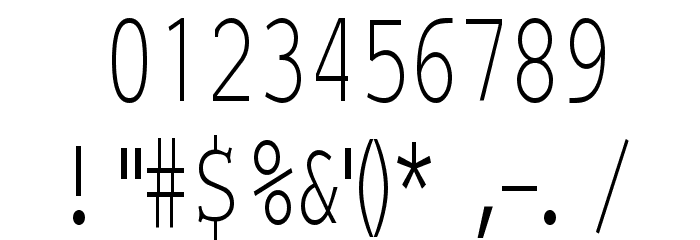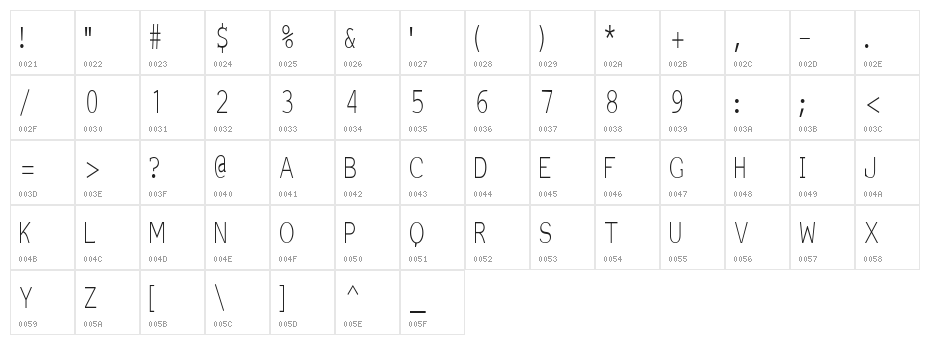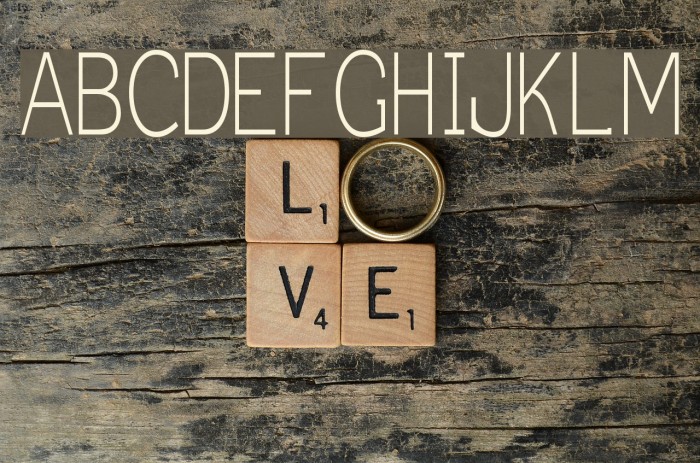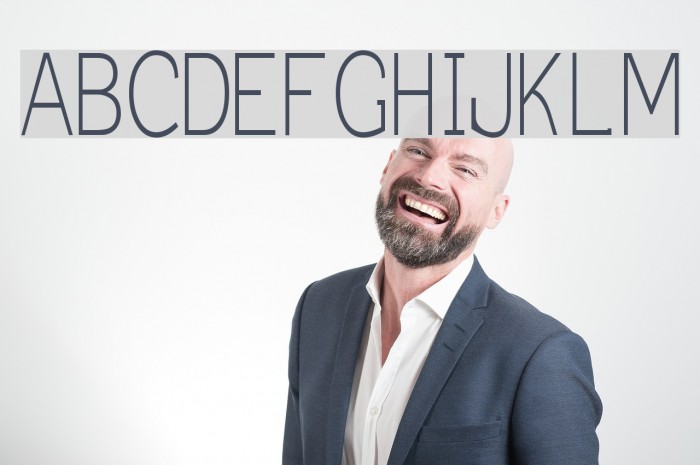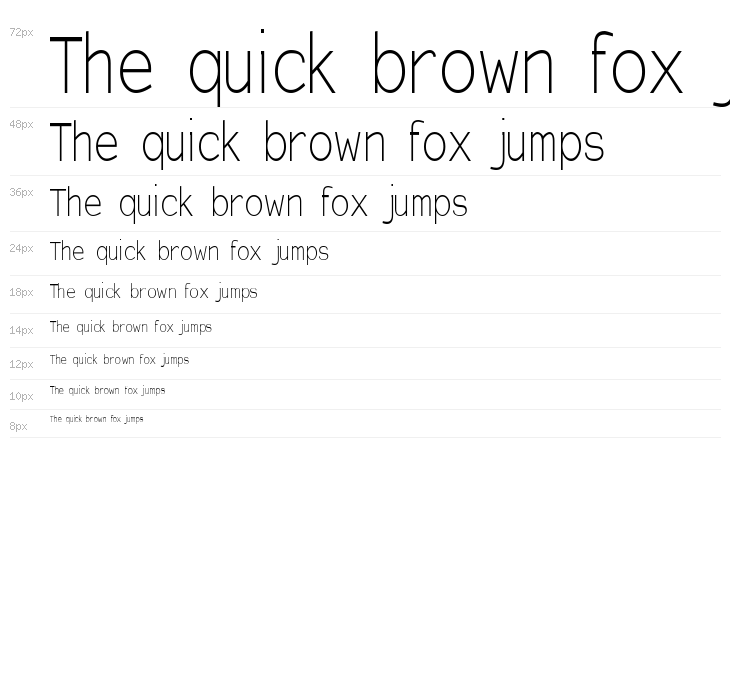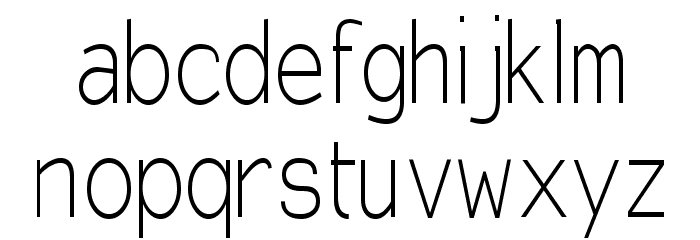
EinzigSans Font
EinzigSans Description
This typeface is a clean and modern sans-serif font characterized by its geometric shapes and minimalistic design. The letters are evenly spaced and maintain a consistent stroke width throughout, giving it a sleek and contemporary appearance. The uppercase and lowercase letters are well-proportioned, with a slight distinction in height that adds to its readability. The numerals are straightforward and align well with the overall style, while the special characters are designed to complement the alphabetic characters seamlessly. This font's simplicity and clarity make it versatile for various design applications.